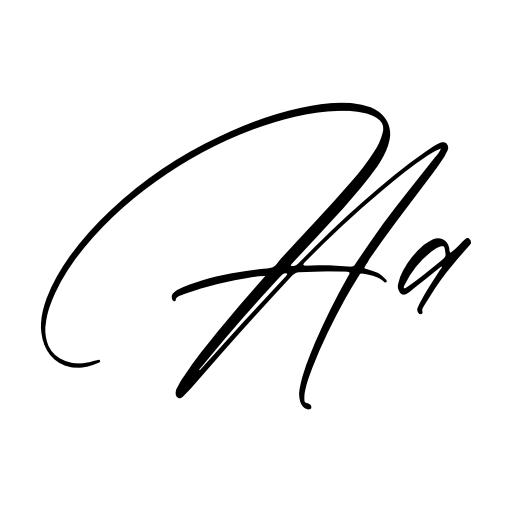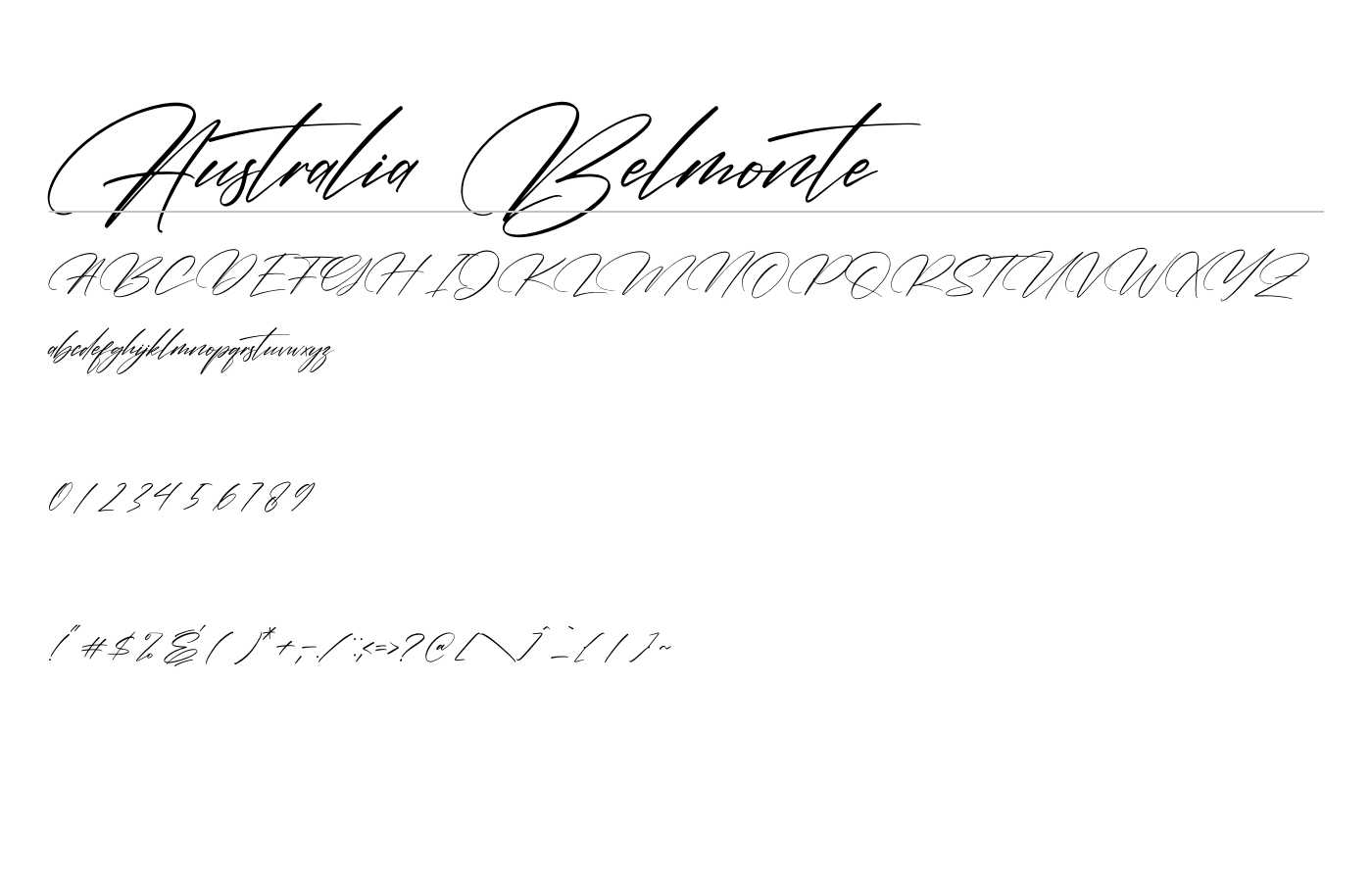
Australia Belmonte is a delicate, elegant script font characterized by its light, flowing strokes and a refined, handwritten style. Its high contrast between thick and thin lines and graceful letterforms make it perfect for sophisticated branding, invitations, and stylish logos where a personal, luxurious touch is desired. This font shines in settings that call for a classy yet approachable look, especially in fashion, beauty, or upscale editorial projects.
Australia Belmonte Font
About Australia Belmonte Font
| Font family | Australia Belmonte Font |